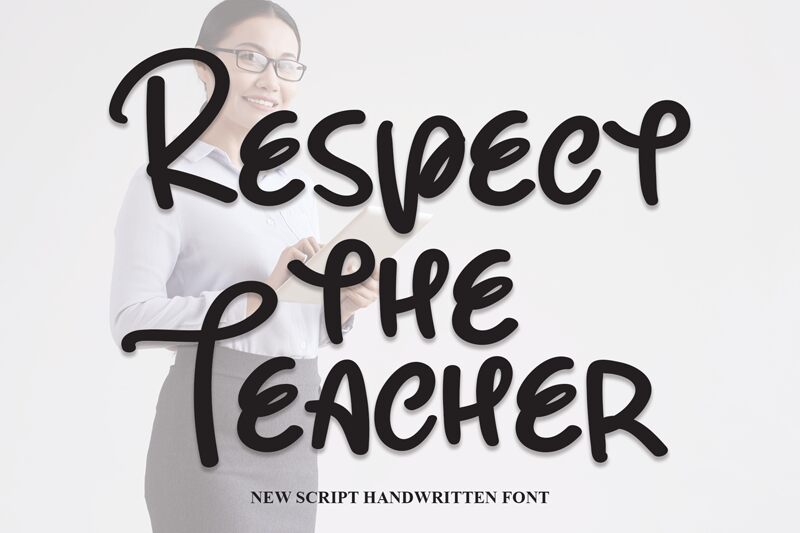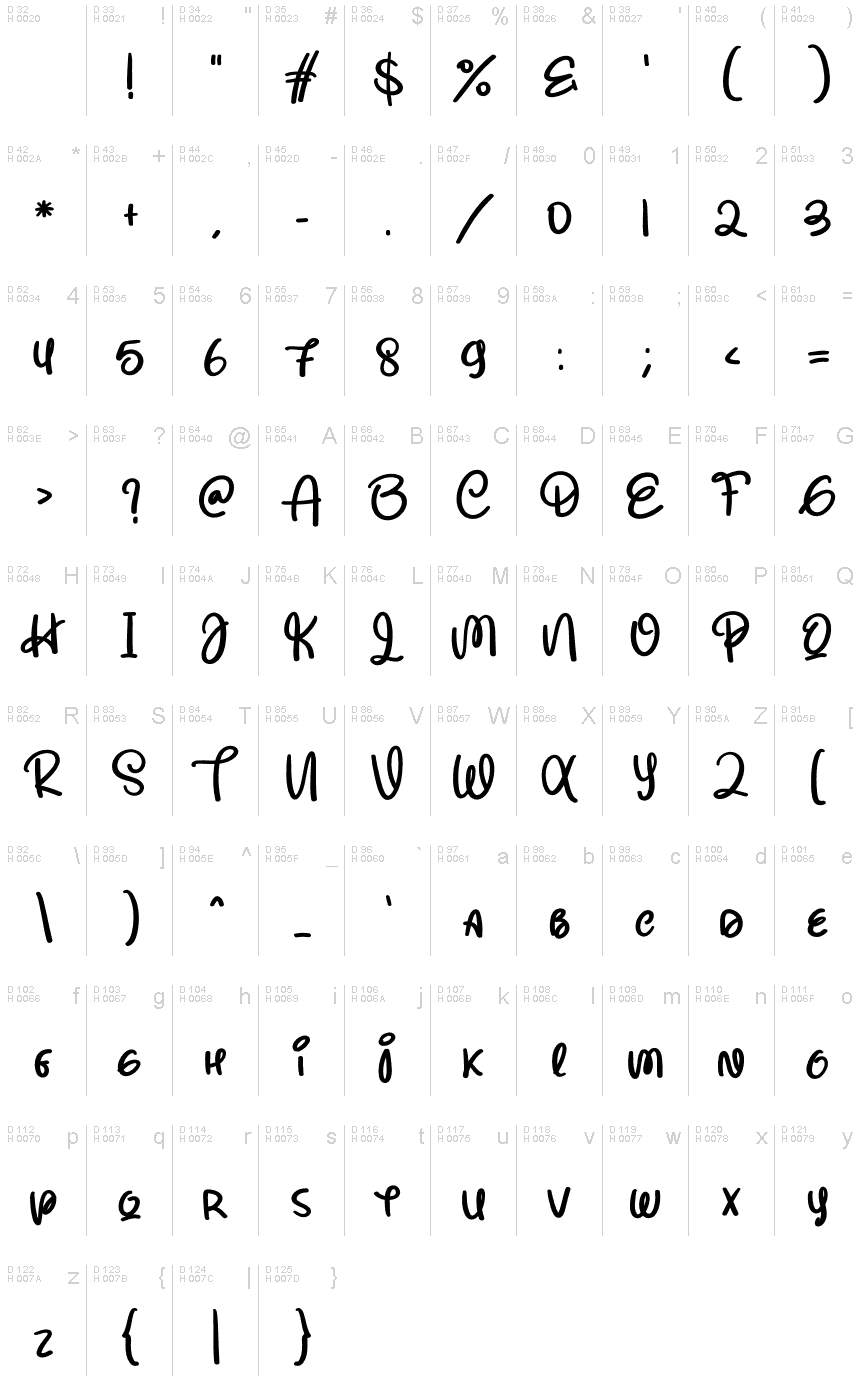
Respect The Teacher
Respect The Teacher, a handwritten font by Scratchones, exudes an air of authority and creativity. With its unique, all-caps style, this font is perfect for educational materials such as textbooks and worksheets.
Its playful yet legible design lends itself well to children's book covers and posters, inviting young readers to explore the world of literature. The fluid strokes of Respect The Teacher make it an excellent choice for personal journals or diary entries, adding a touch of authenticity to the written word.
Let this font inspire respect for learning and ignite the imagination in all your projects.
The latest style letters are perfect for wall displays, wedding invitations, social media post logos, advertisements, product packaging, product designs, labels, photography, watermarks, invitations, stationery, and any project that requires taste handwriting.